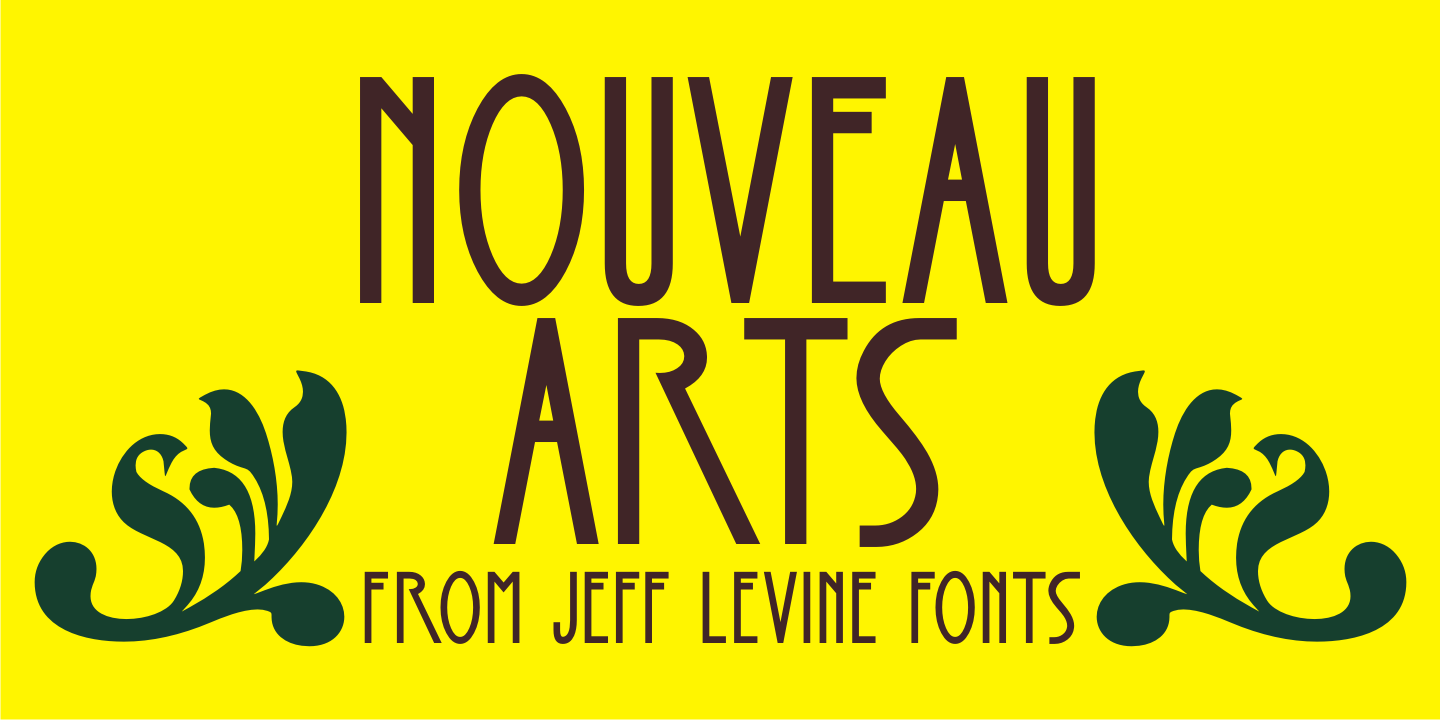
Nouveau Arts JNL Font excels in diverse design applications including Art Nouveau museum exhibitions, vintage poster reproductions, elegant Belle Époque restaurant branding, decorative arts gallery materials, luxury vintage jewelry packaging, fin de siècle cultural events, ornamental architecture presentations, and sophisticated period-inspired projects that require authentic Art Nouveau sophistication and decorative elegance.
What makes Nouveau Arts JNL Font truly exciting is its exquisite recreation of Art Nouveau artistic excellence that captures the revolutionary spirit of the late 19th and early 20th century movement that transformed decorative arts through its celebration of natural forms, flowing lines, and the harmonious integration of art into everyday life. This magnificent typeface features graceful letterforms with characteristic Art Nouveau flourishes that evoke images of Alphonse Mucha's flowing maidens, Louis Comfort Tiffany's stained glass masterpieces, and the organic architectural details that defined the movement's commitment to bringing beauty into modern urban environments. The font's artistic character reflects the innovation and elegance of the Art Nouveau era, making it perfect for brands that want to communicate artistic heritage, decorative sophistication, and the timeless appeal of ornamental design. Its decorative appearance creates immediate associations with artistic refinement and cultural sophistication.
The Nouveau Arts JNL Font family includes multiple weights and decorative variations designed to enhance artistic communication. The collection features Light, Regular, Medium, and Bold weights, each maintaining the font's characteristic Art Nouveau appeal while offering different levels of decorative presence. The family also includes ornamental elements inspired by period motifs, flowing flourishes that enhance artistic significance, and stylistic alternates that add period personality and authentic customization. Additional features include contextual ligatures and artistic sets that create elegant, sophisticated text arrangements perfect for cultural and decorative applications.
Cultural and artistic professionals consistently choose Nouveau Arts JNL Font Free Download for projects requiring authentic Art Nouveau character and period credibility. The font's artistic nature makes it particularly effective for museums, cultural institutions, and luxury brands targeting audiences who appreciate historical artistic movements and decorative arts heritage. Its excellent readability across various applications ensures effective communication while maintaining the distinctive decorative character that conveys cultural authority and artistic sophistication.
The advanced OpenType capabilities of Nouveau Arts JNL Font include contextual alternates, stylistic sets, and comprehensive character support that accommodates artistic terminology and cultural expressions while preserving the font's authentic Art Nouveau character. The technical precision ensures consistent decorative appearance across different cultural applications and artistic platforms.
For creative professionals seeking a typeface that embodies genuine Art Nouveau heritage and decorative sophistication, Nouveau Arts JNL Font offers unparalleled artistic appeal and cultural elegance. Its ability to convey artistic authority while maintaining functional communication makes it invaluable for museums, cultural organizations, and luxury brands celebrating decorative arts. The font's distinctive Art Nouveau character ensures memorable cultural impact across all applications, creating powerful visual identity systems that celebrate the enduring beauty of Art Nouveau design and the revolutionary artistic movement that continues to inspire contemporary decorative arts and cultural appreciation.